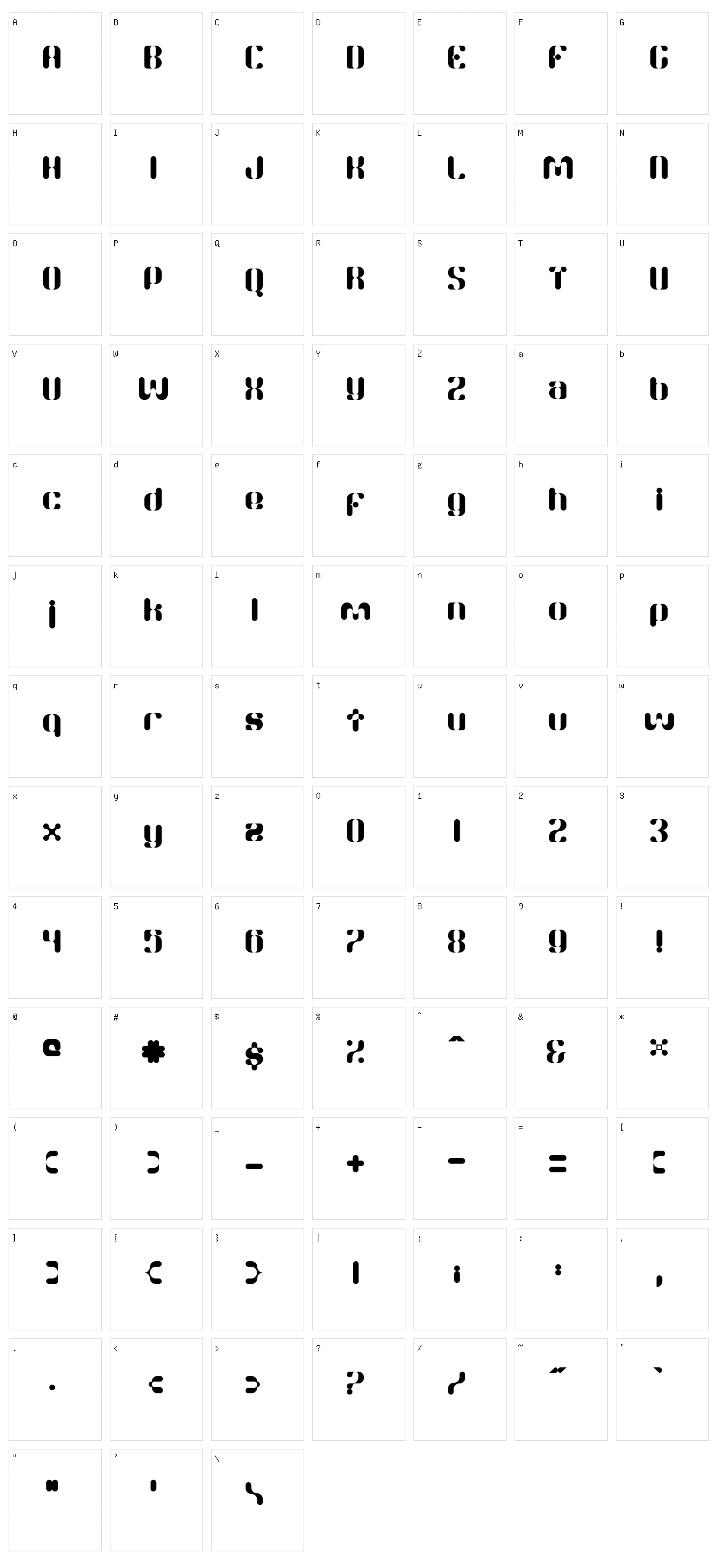
The free font Twitch RC is carefully designed by Ryan Brotherston, showcasing a thoughtful balance of creativity and usability and falls under the Groovy font style. When you download the ZIP file, it contains only 8.77 KB of font files, making it lightweight and quick to download. Please review the license details below to understand permitted usage and distribution rights. If license information is not available, we recommend using this font for personal projects only or contacting the author directly for commercial usage permissions.